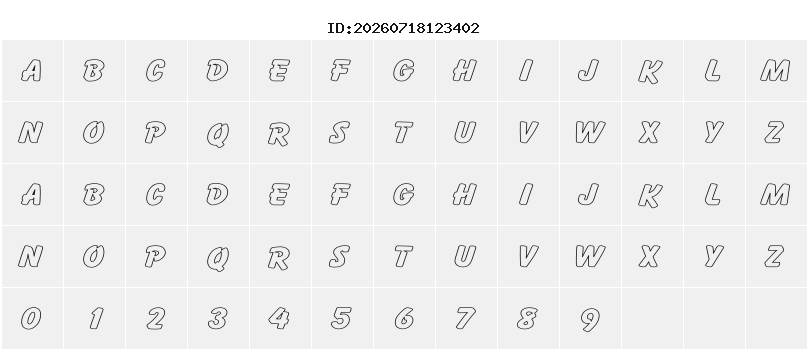
About Cartoon Hollow Wide.ttf
Cartoon Hollow Wide.ttf is a modern, elegant sans-serif font designed for ultimate readability and visual harmony. Perfect for branding, headlines, web design, and print materials.